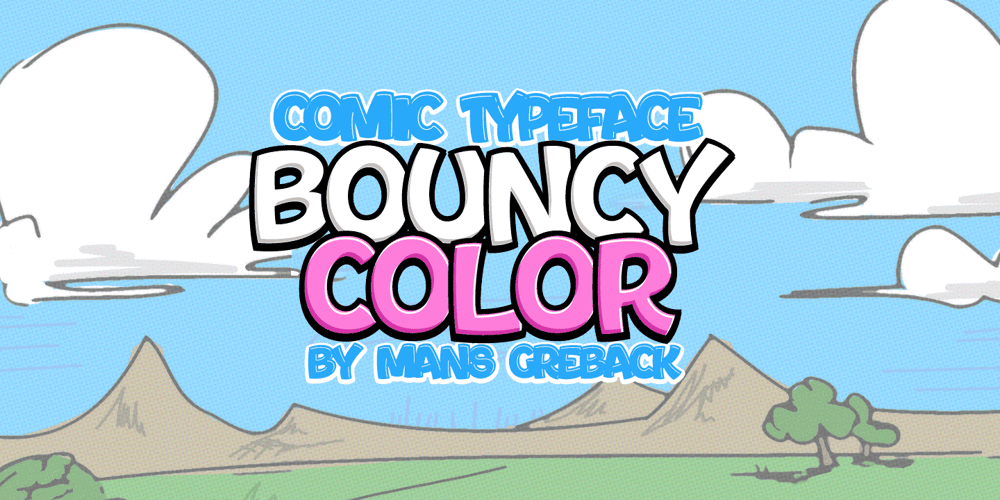
Bouncy Color Font Family was designed by Måns Grebäck and published by Mans Greback. Bouncy Color contains 5 styles and family package options. Bouncy Color is a funny cartoon font with pre-set coloring, outline and shine effects!Drawn and created by Mans Greback in 2021, this comic-style lettering has a happy, quirky personality and optimistic humour. It has a colorful graffiti and street art look, while being a childish and cute sans-serif – a typeface for boys and girls alike. Bouncy Color is provided in five styles: White, Blue, Pink, Highlight and Outlined.Use it in Photoshop, Illustrator, InDesign or any other modern software that supports color fonts, and you’ll give any project a fun and happy appearance.